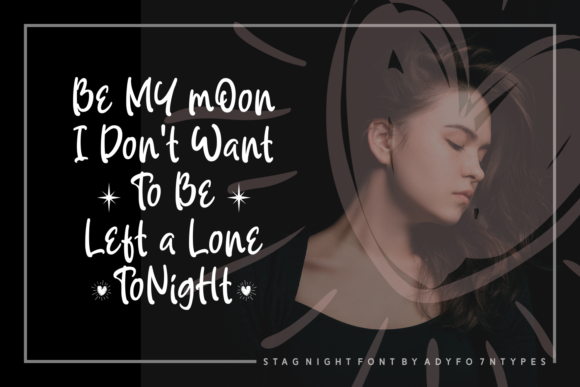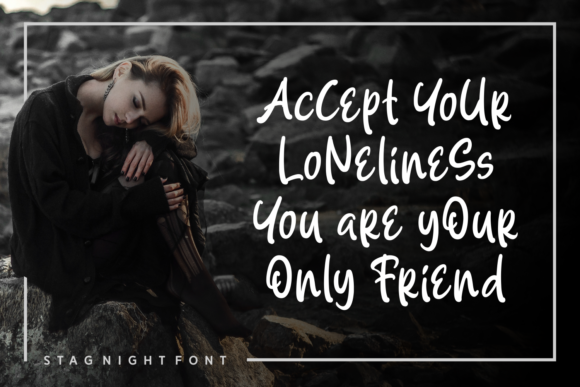
Stag Night Font
db-ku.com - Script & Handwritten -- Stag Night is a lovely handwritten font with a romantic twist. Get inspired by its delicate charm!